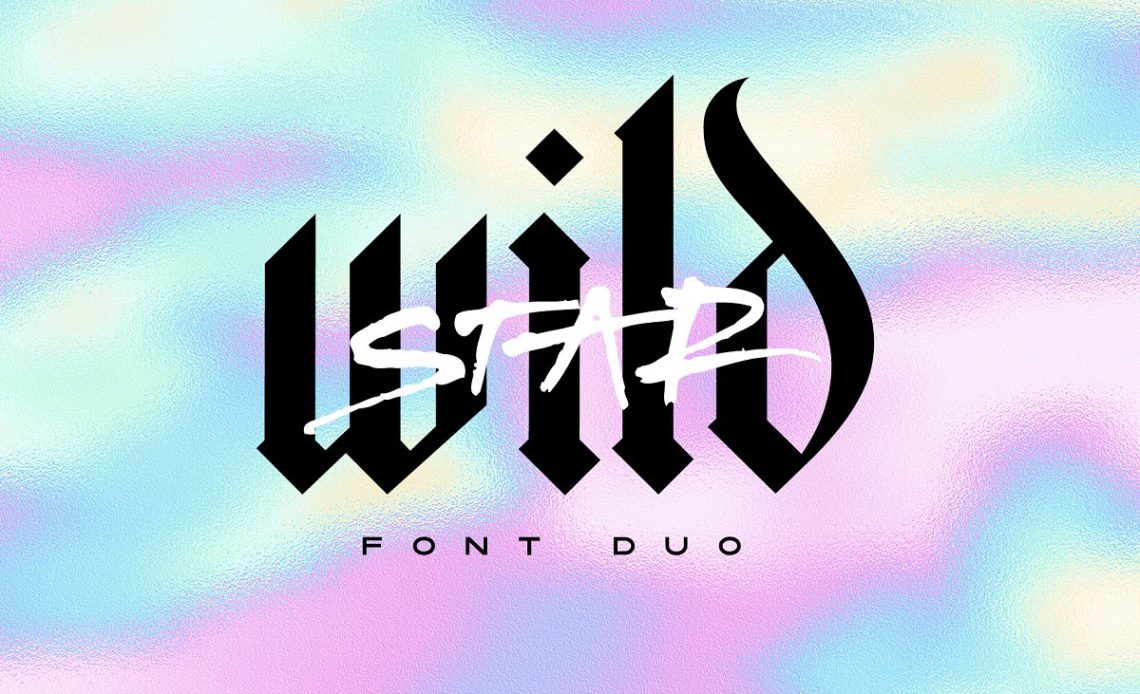
Introducing Wild Star Font Duo, a powerful combination of a modern blackletter font and an unrestrained script font designed by Sam Parrett. This font duo is the ultimate choice for those who want to make a bold statement with their designs.
The modern blackletter font contains lowercase characters, numerals, and a full range of punctuation. It also has alternate stylistic versions for letters g, l, and y, which contain an underline flourish. You can easily access these stylistic alternates by turning on the "Stylistic Alternates" feature or via a Glyphs panel.
The second font file, Wild Star Outline, is a variation of the blackletter font with an added outline effect, which adds an extra dimension to your designs.
The third font file, Wild Star Script, is a rough, hand-scratched font with two sets of uppercase characters, numerals, and a full set of punctuation. You can easily switch between the two sets of characters by turning your caps lock on and off.
The Wild Star Font Duo is an excellent choice for a variety of design projects, including merchandise, album artwork, logo designs, quotes, and more. It's a bold and daring font that isn't afraid to make a statement and grab the viewer's attention. With its unique combination of modern blackletter and script fonts, Wild Star Font Duo is sure to elevate your designs and set them apart from the rest.